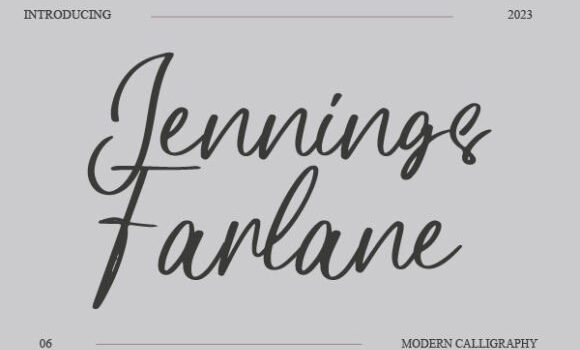
Jennings Farlane Font – Free Download Introduction to Jennings Farlane Font Jennings Farlane is a sweet and cursive handwritten font. 📸 Preview Gallery 6 images 📌 Product Name Jennings Farlane Font 👤 Author fiqiart 📂 Category Explore ⬇️ Download Jennings